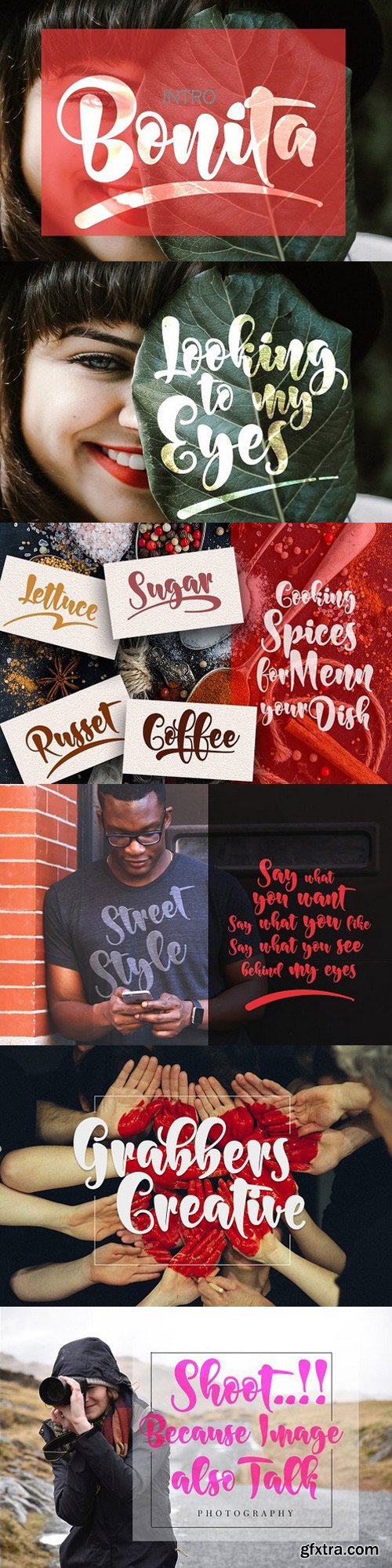
Bonita Script Font
Bonita Bold is the font style handmade dancing and then live trace to have unique ., the writing style is very natural. The Features of this fonts is; Standart ligatures, Stylistic Alternates, Stylistic sets, PUA Unicode (Private Use Areas), File font Bonita Include ; Bonita OTF, Bonita TTF, Bonus swash 6 item (PSD and AI). Programs that support in this font is a Adobe Photo Shop, Adobe Illustrator, Adobe Indesign, Corel Draw and Microsoft Office.